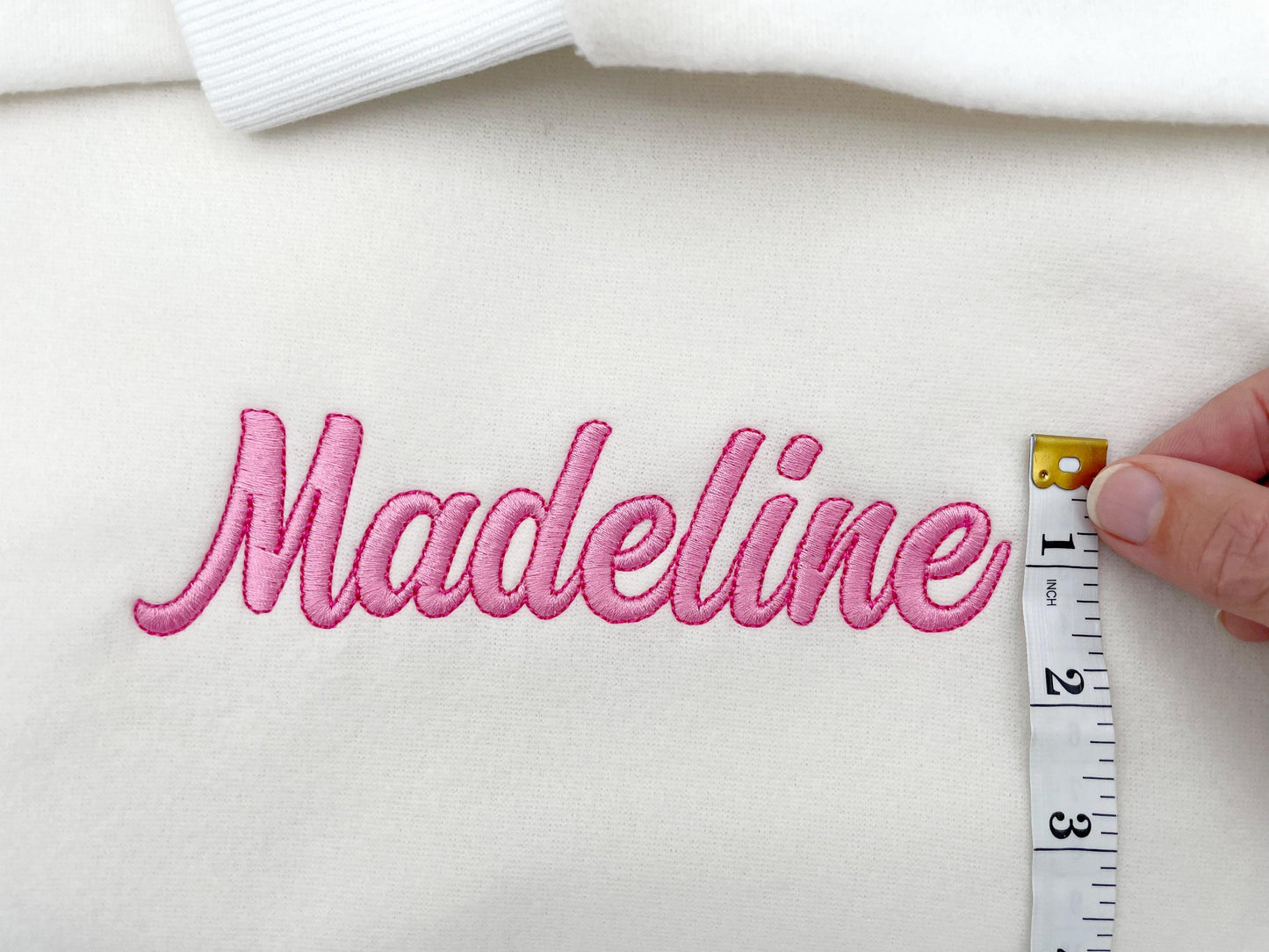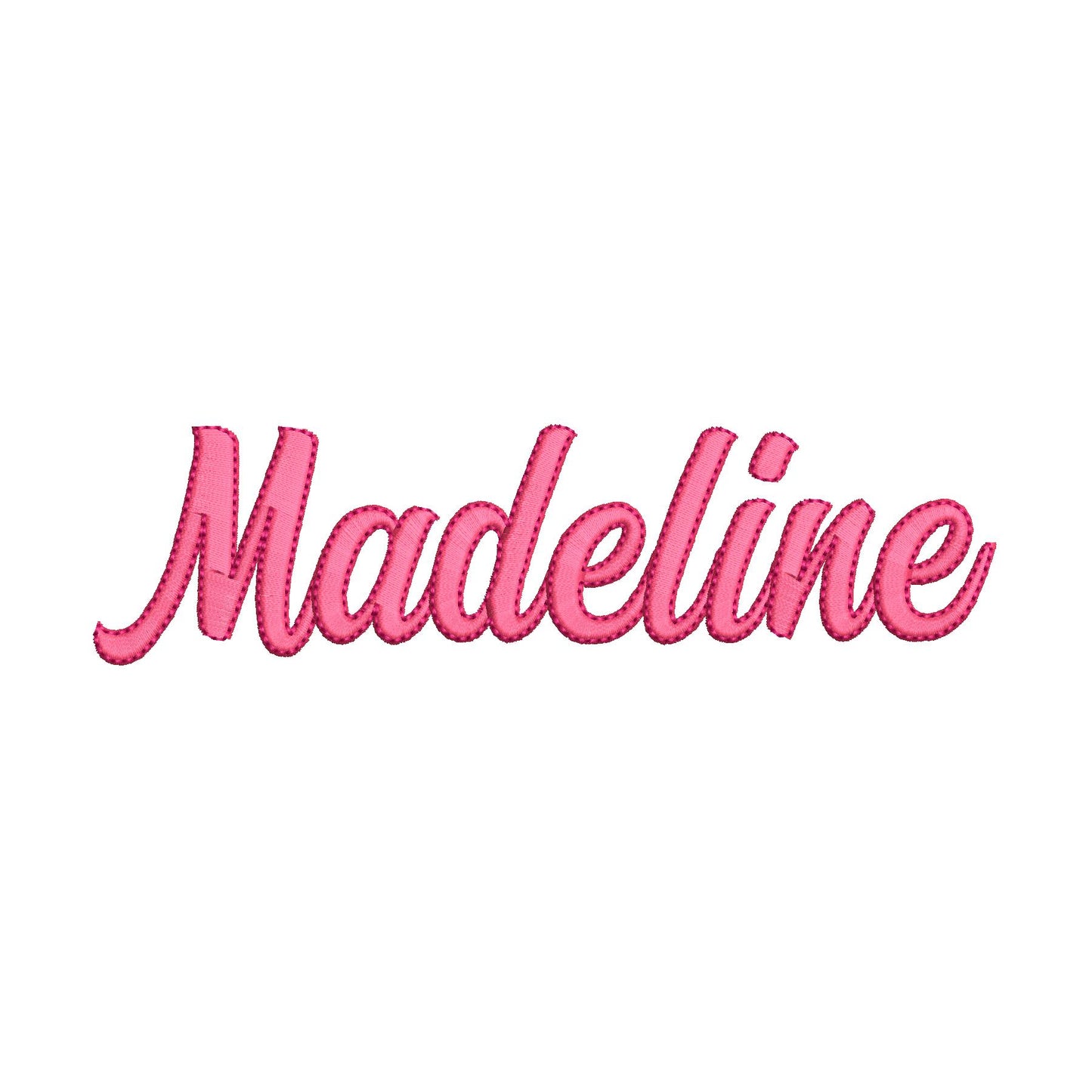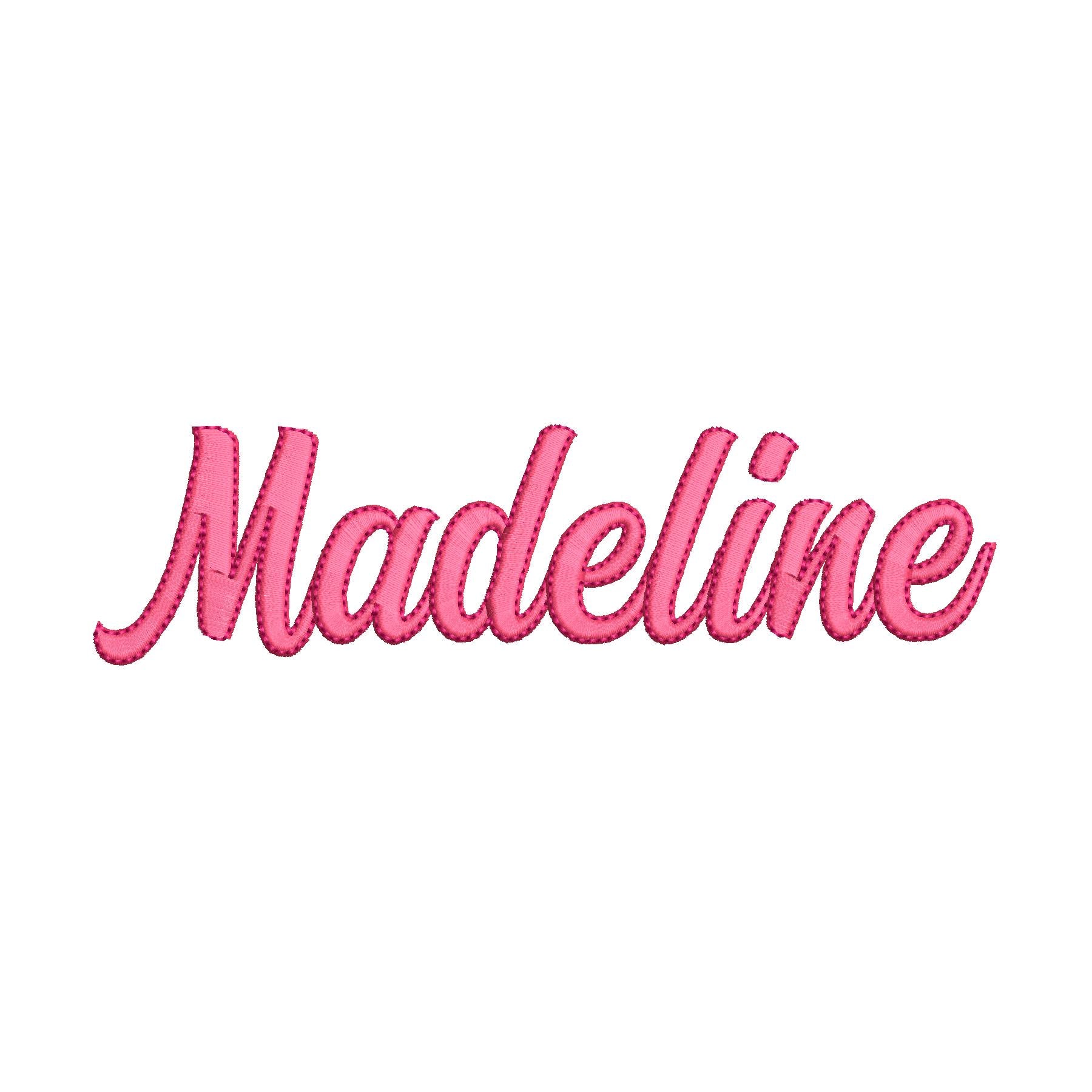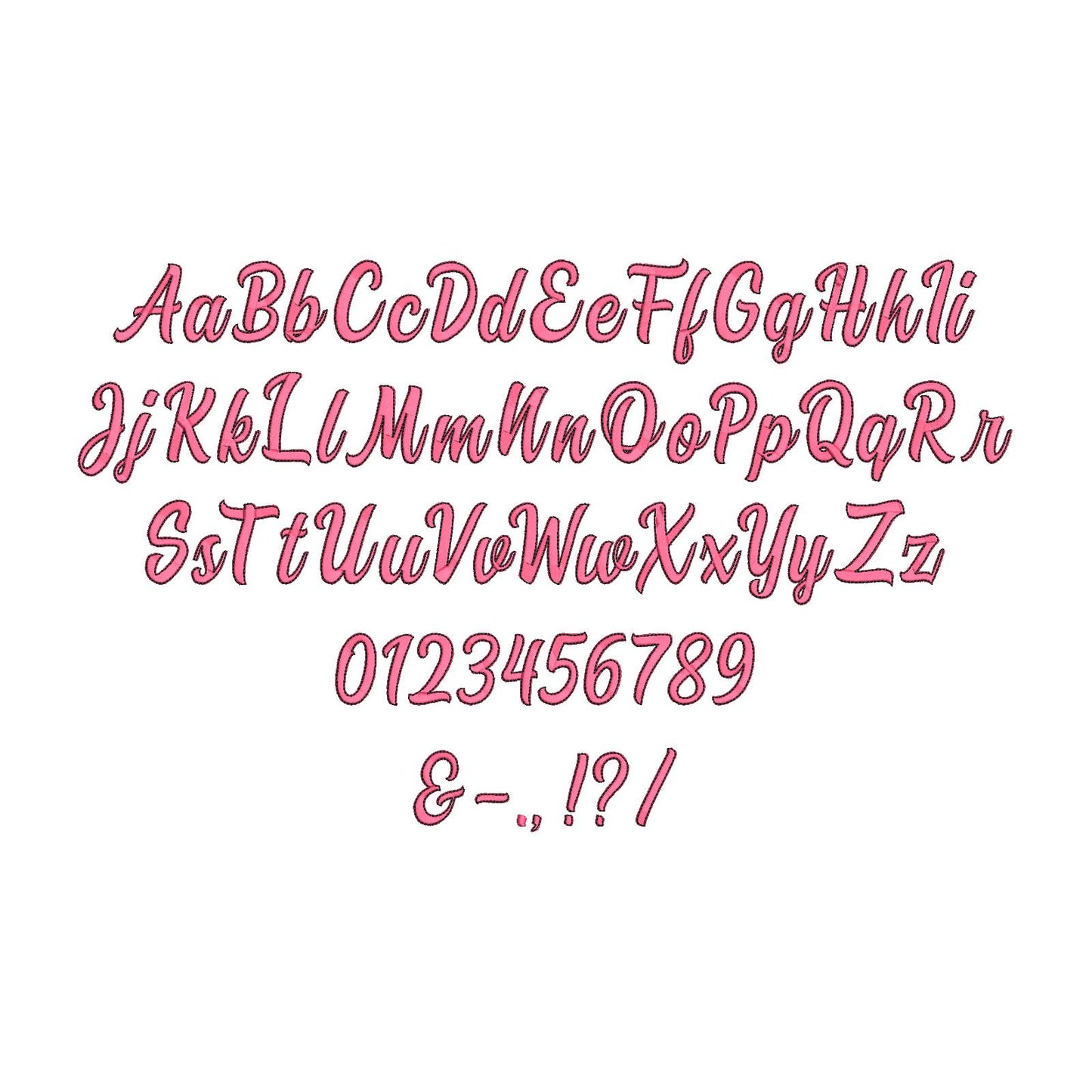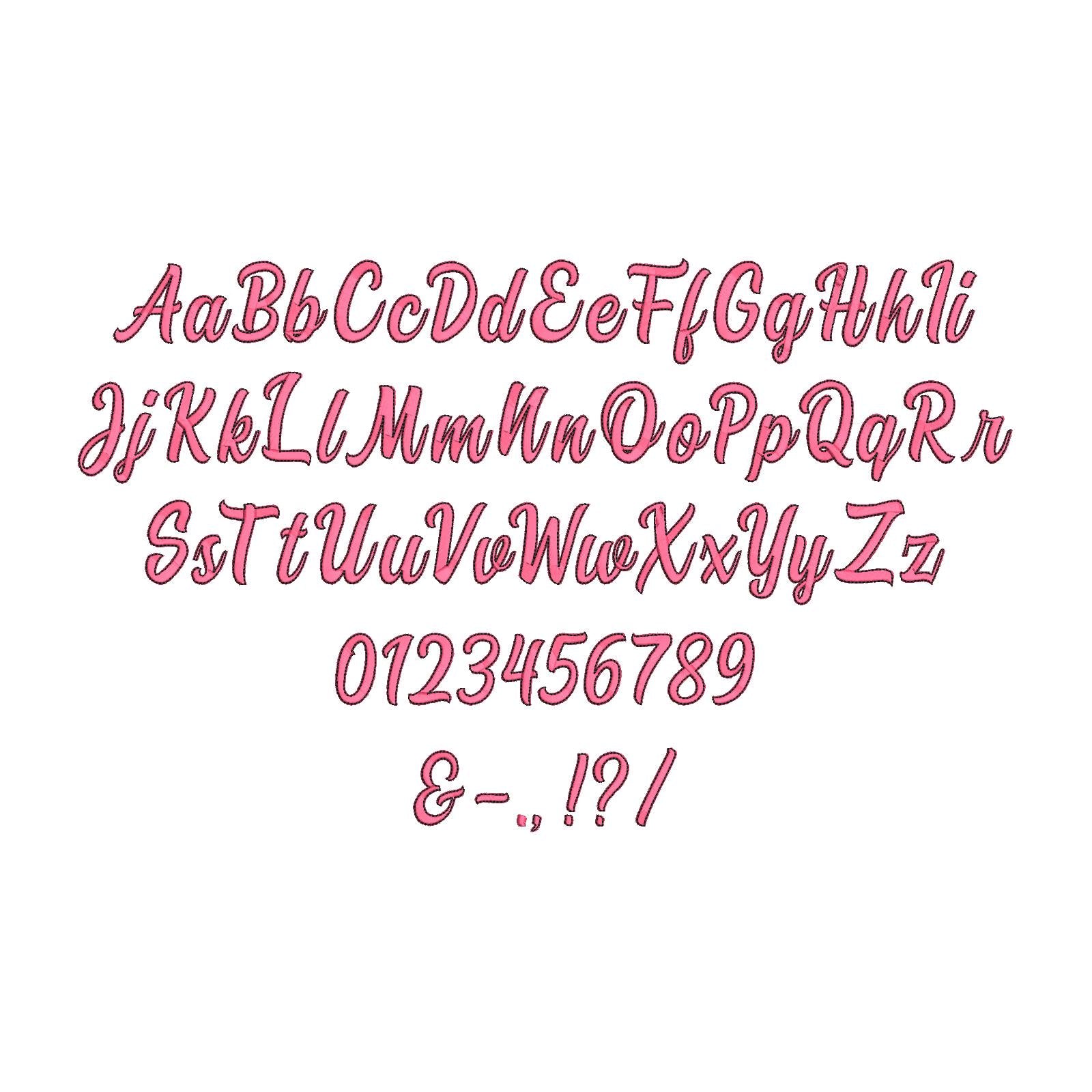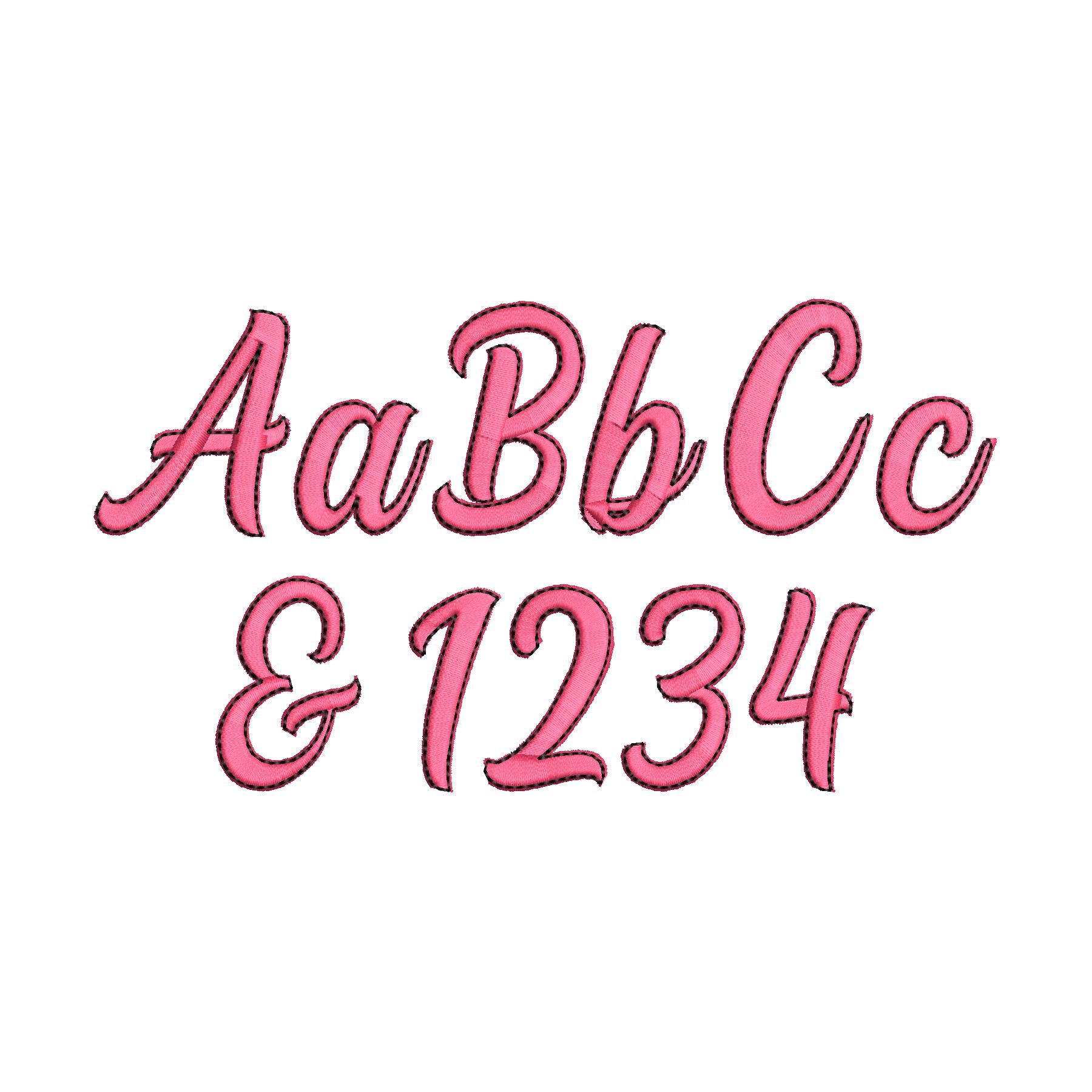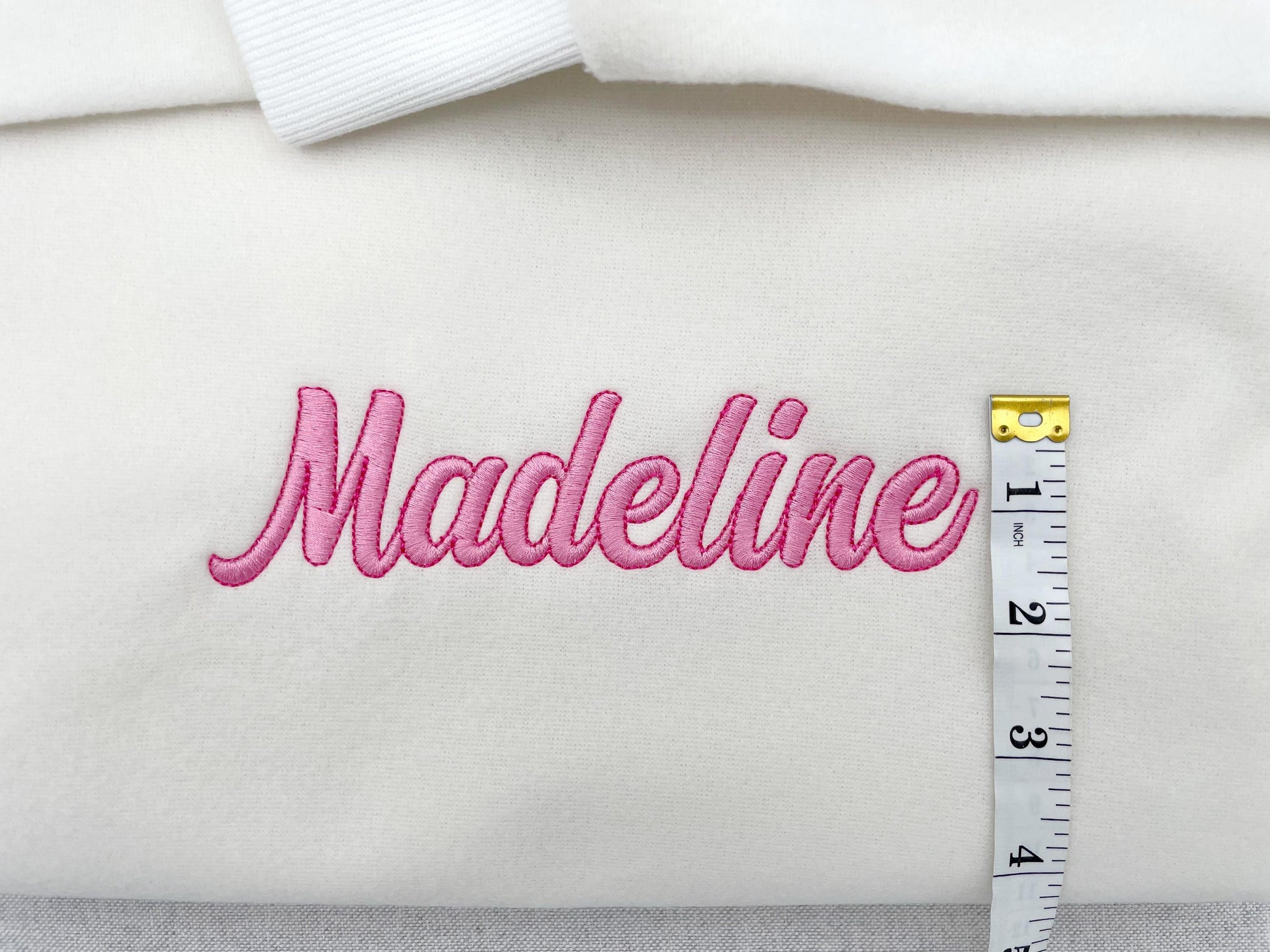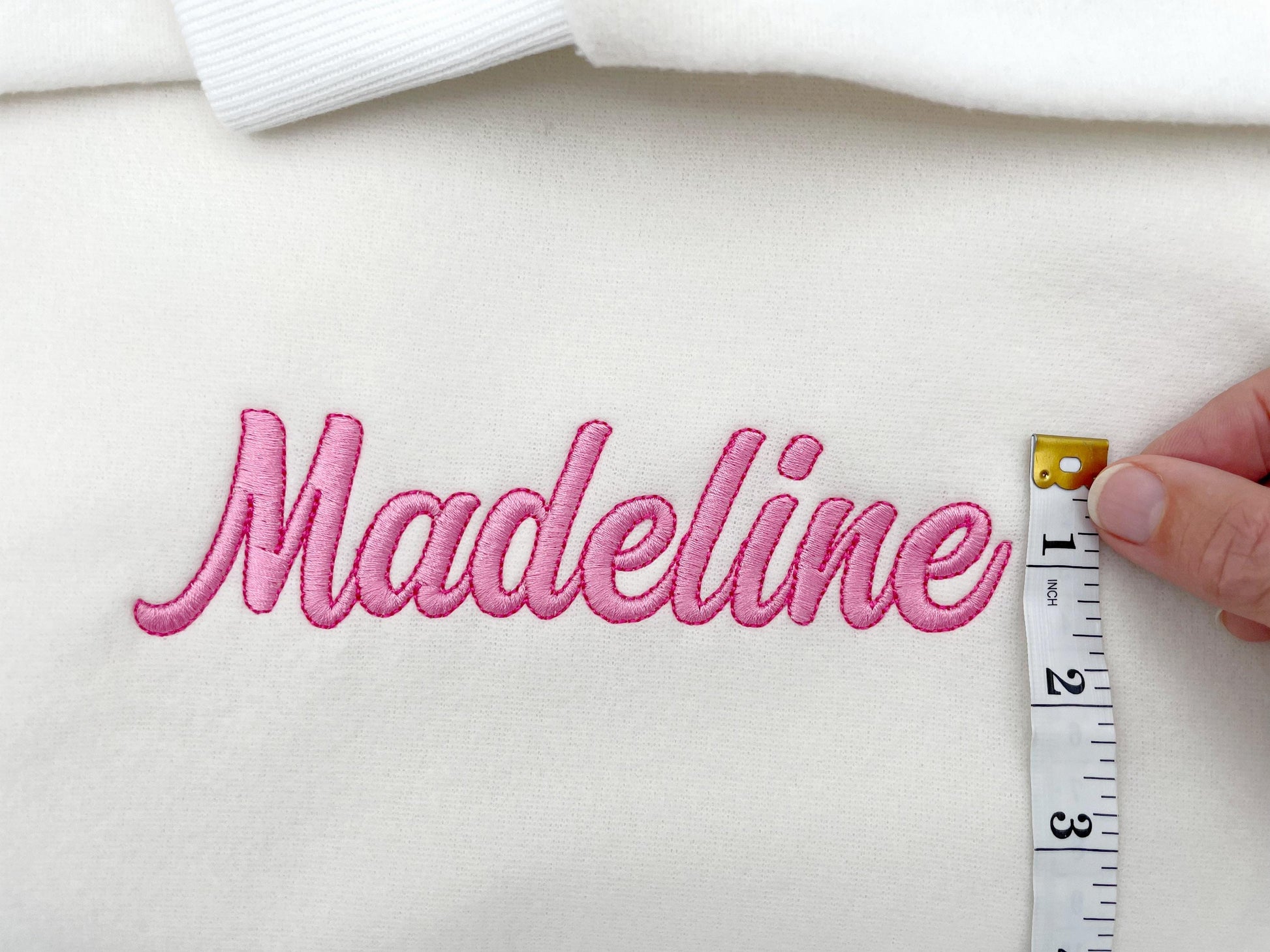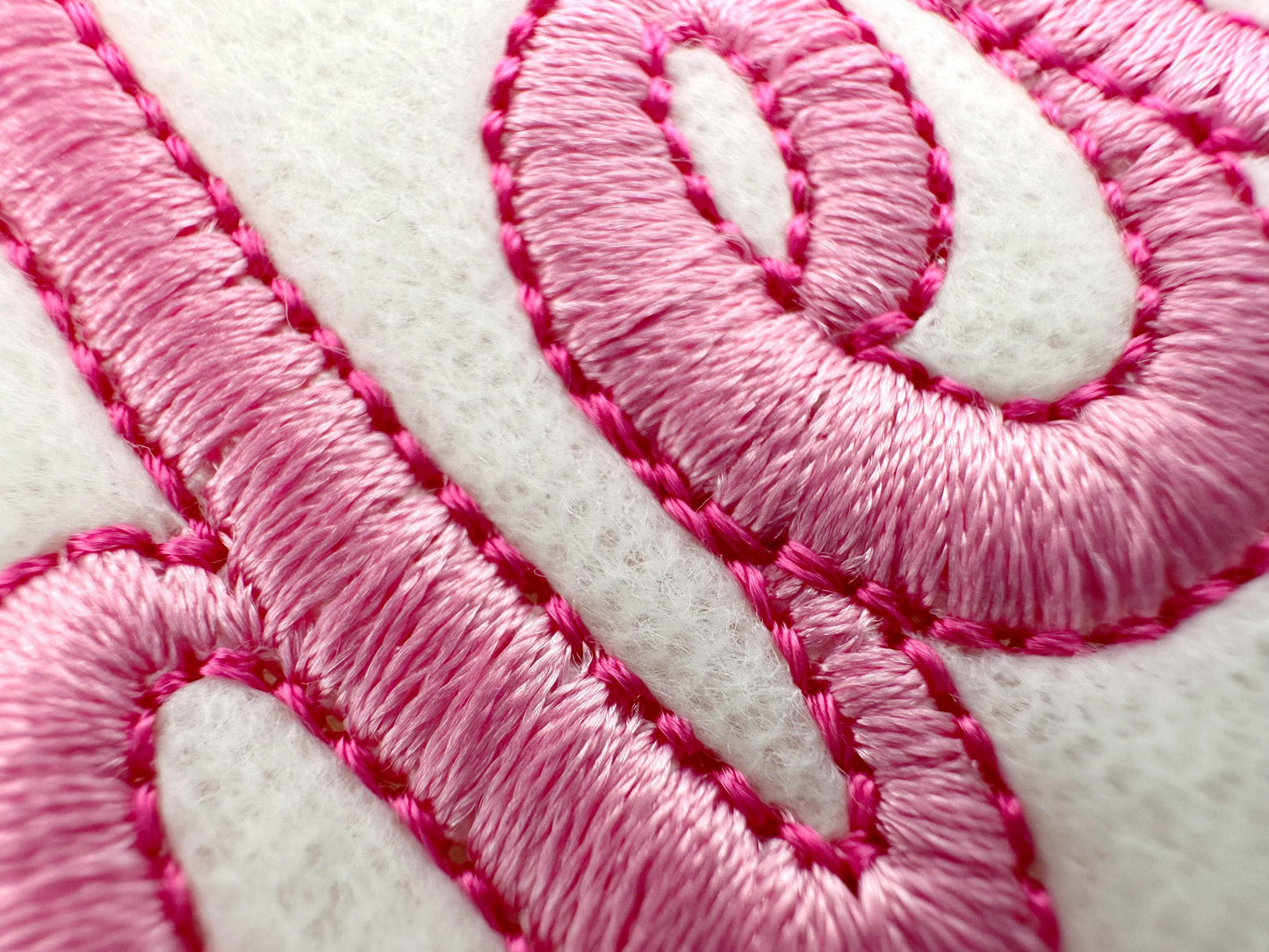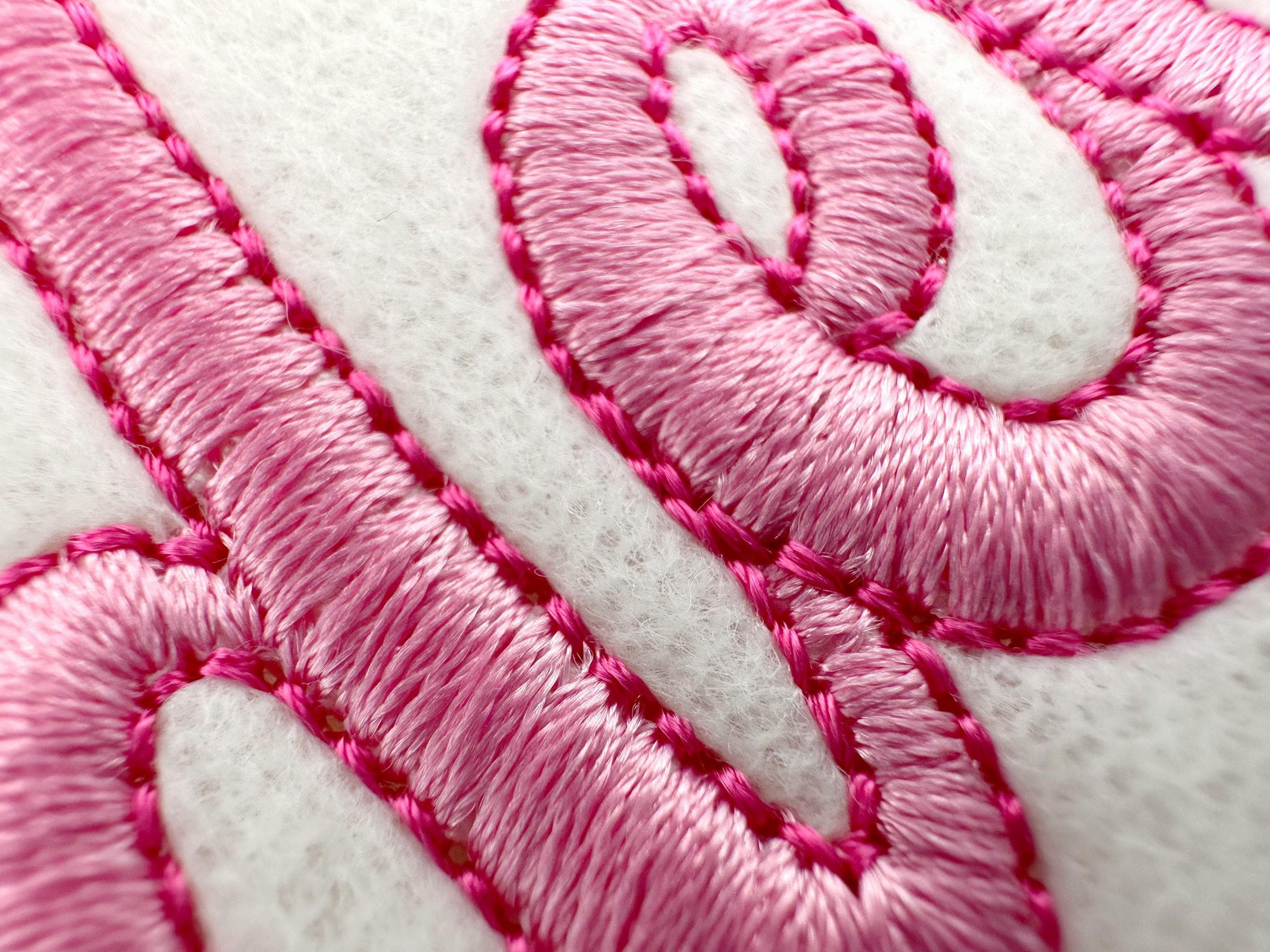
Satin Delicate Font with Outline
Or click to open the linkA delicate handwritten font in satin stitch with a bean stitch outline. Pretty for names, monograms and small gifts.
The letters come in six sizes: 1, 1.2, 1.6, 2, 2.4 and 3.1 inches. Satin stitch letters framed by a fine bean stitch outline. Includes uppercase and lowercase letters, numbers 0 to 9 and punctuation.
- Delicate satin stitch script font, bean stitch outline
- 6 sizes, 1 to 3.1 in